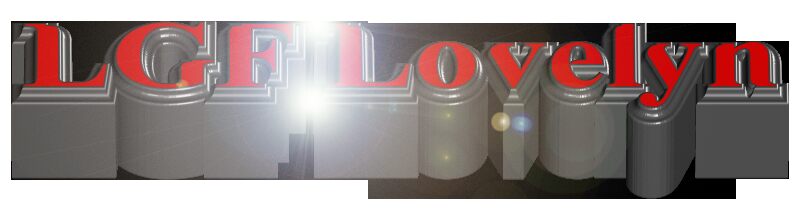
LGF Lovevelyn by Manuel Lage is a free high-contrast display typeface with the elegance of a modern Didone. Thick vertical strokes snap against fine hairlines and long, flat serifs. The broad capitals and tightly drawn lowercase forms create an elegant but slightly theatrical silhouette.
Fashion photography shares its clean silhouettes and dramatic contrast, making the face a natural fit for magazine covers and beauty campaigns. The refined curves connect those uses with upscale fashion and cosmetics audiences. Perfume packaging and formal invitations can use the same poised, theatrical lettering.
Lovevelyn Normal is a font by Manuel Lage, designed in 2013. It is dedicated to Monica Evelyn Pan Iglesias (10 April 2010–17 November 2013). It is also known as Hateevelyn Normal.